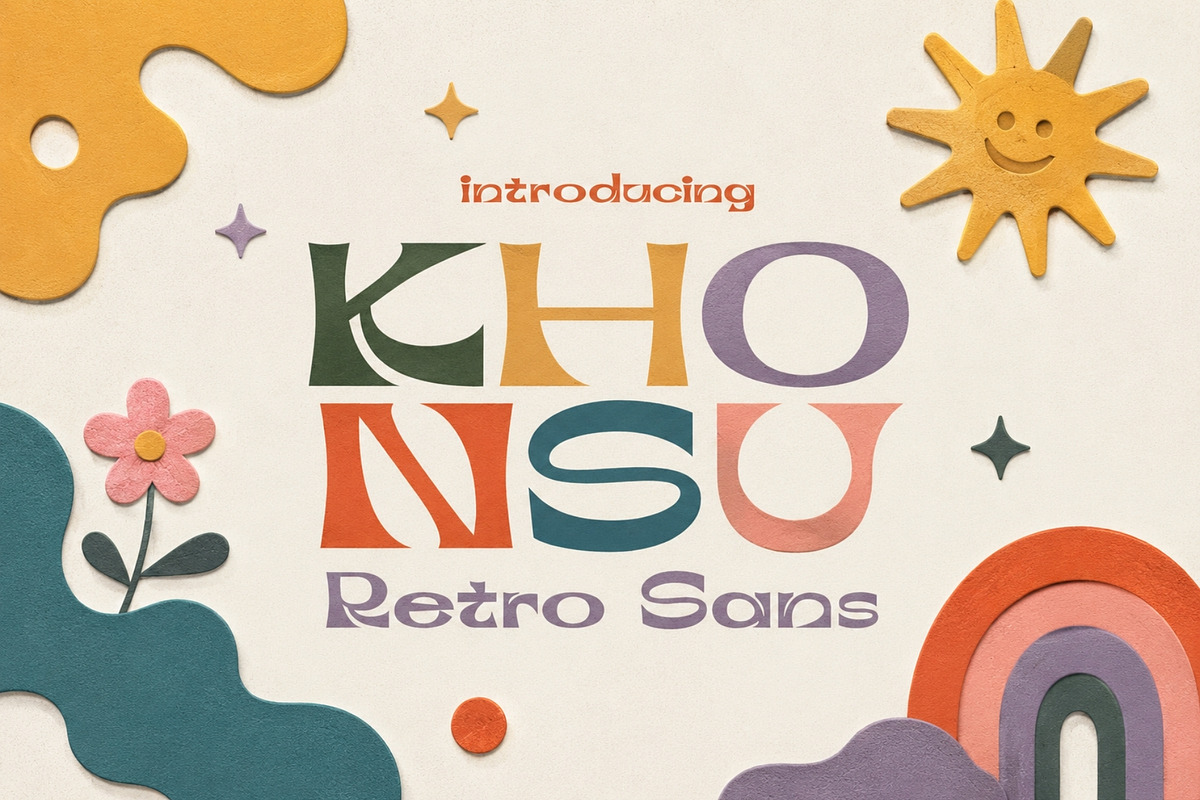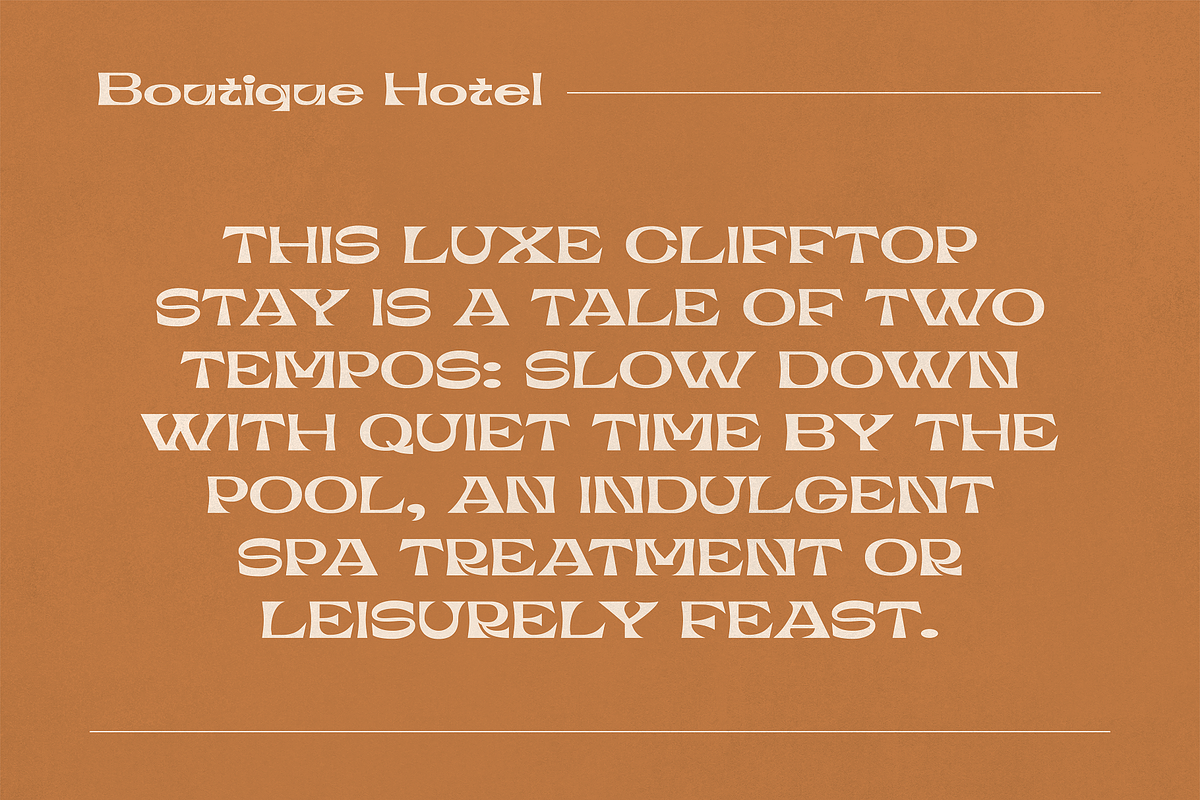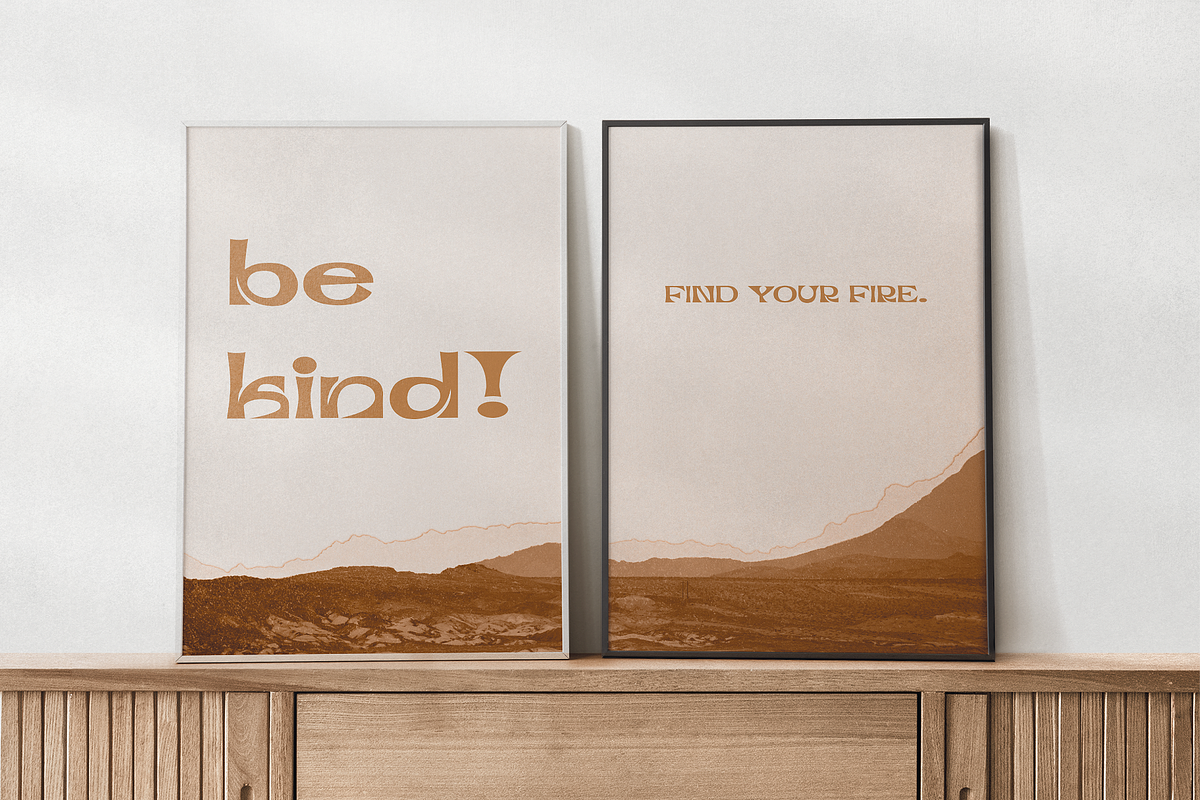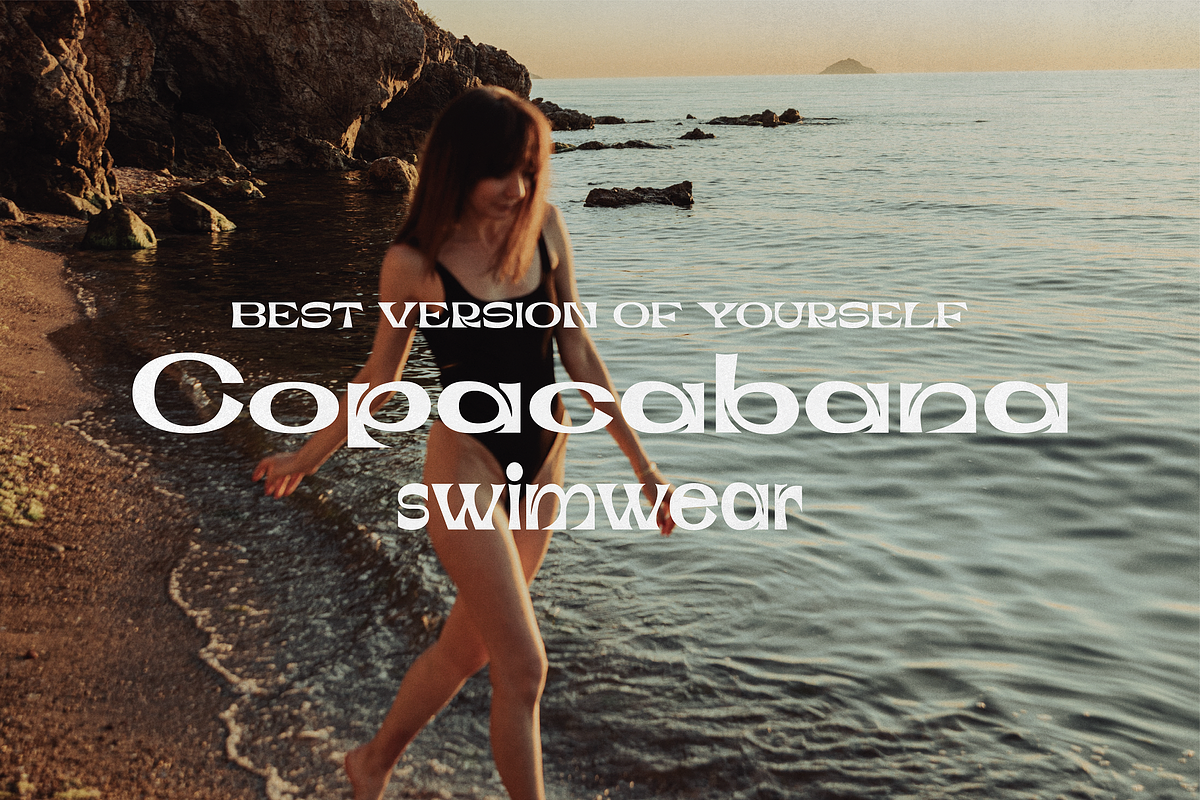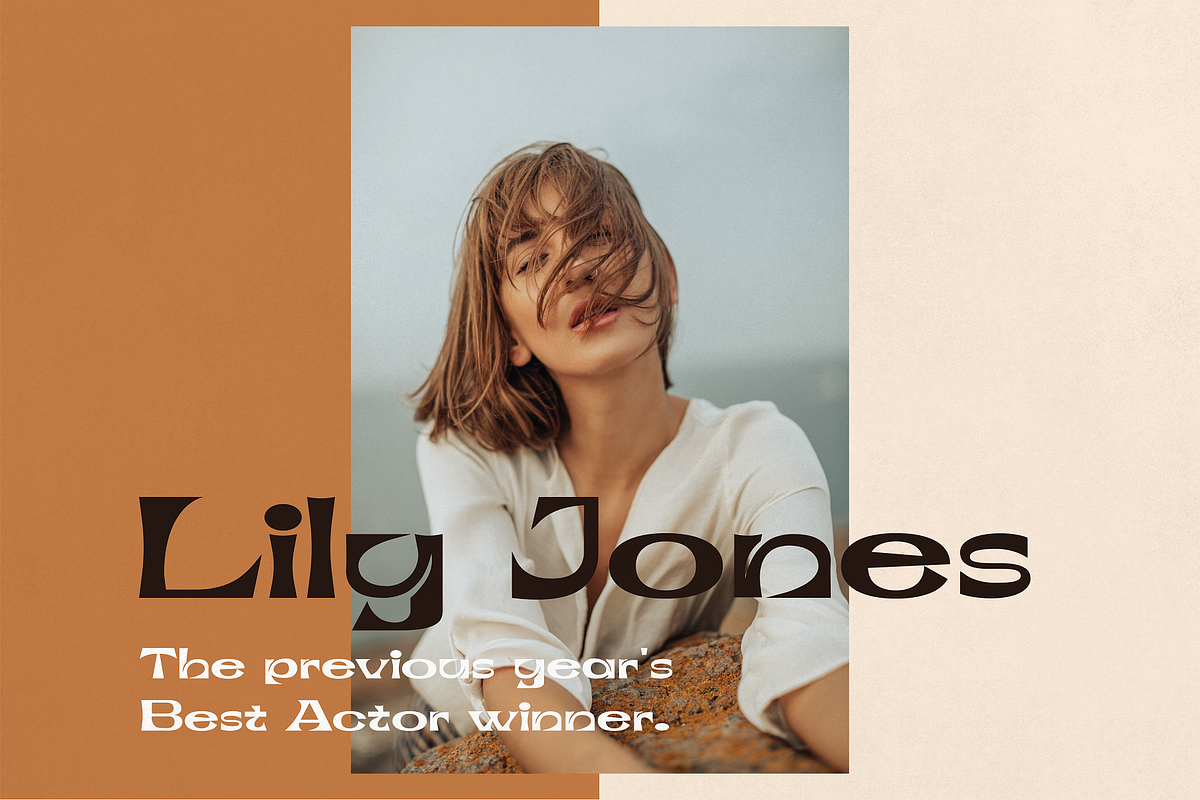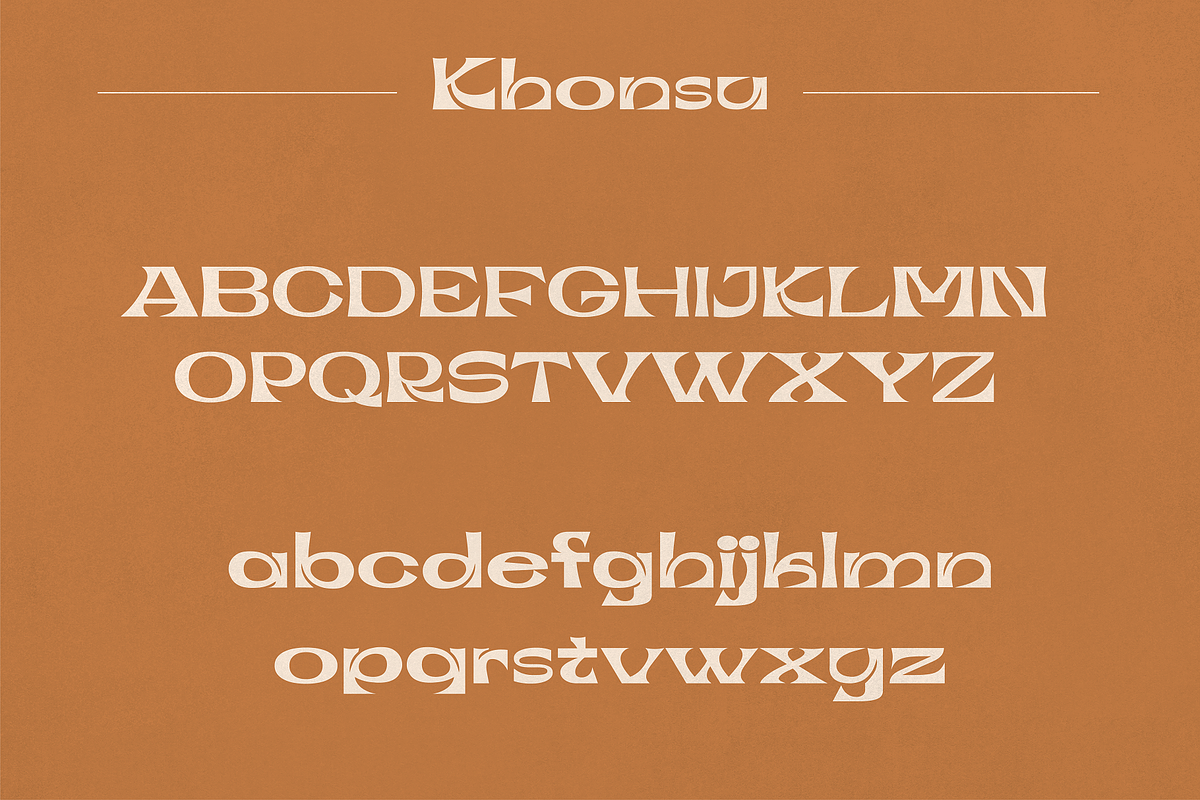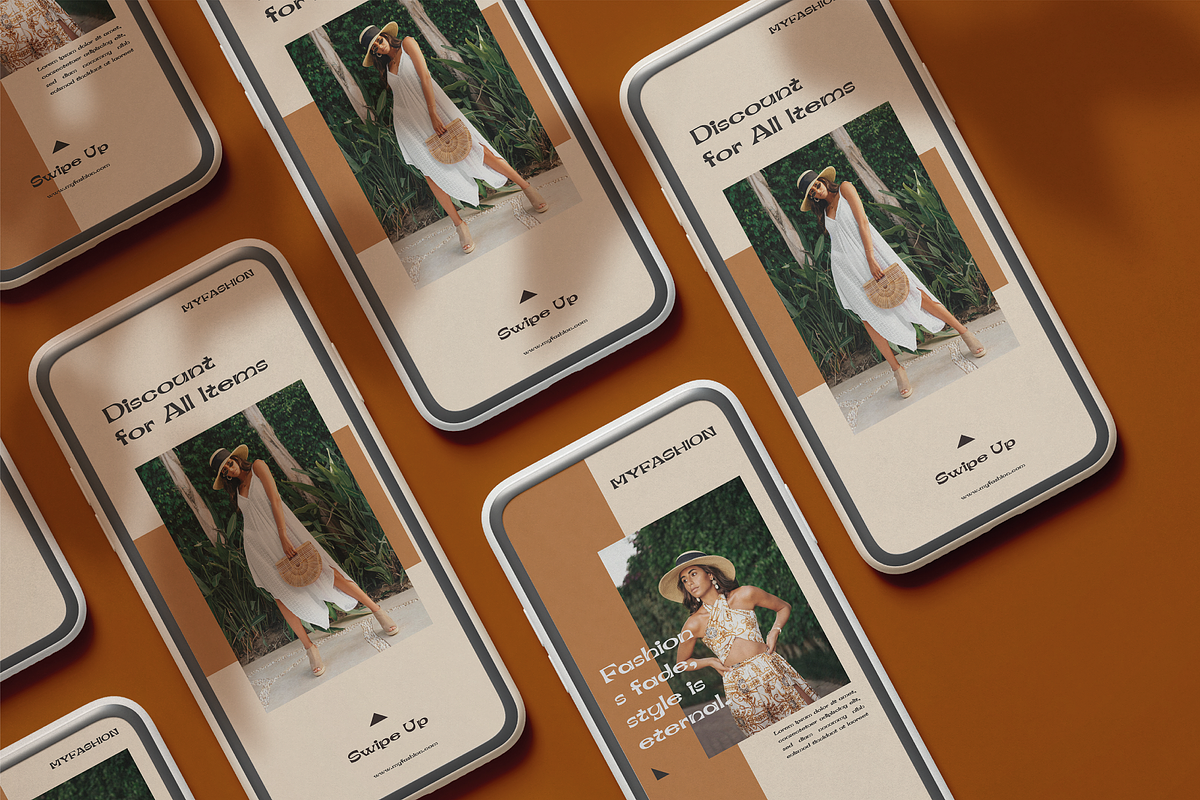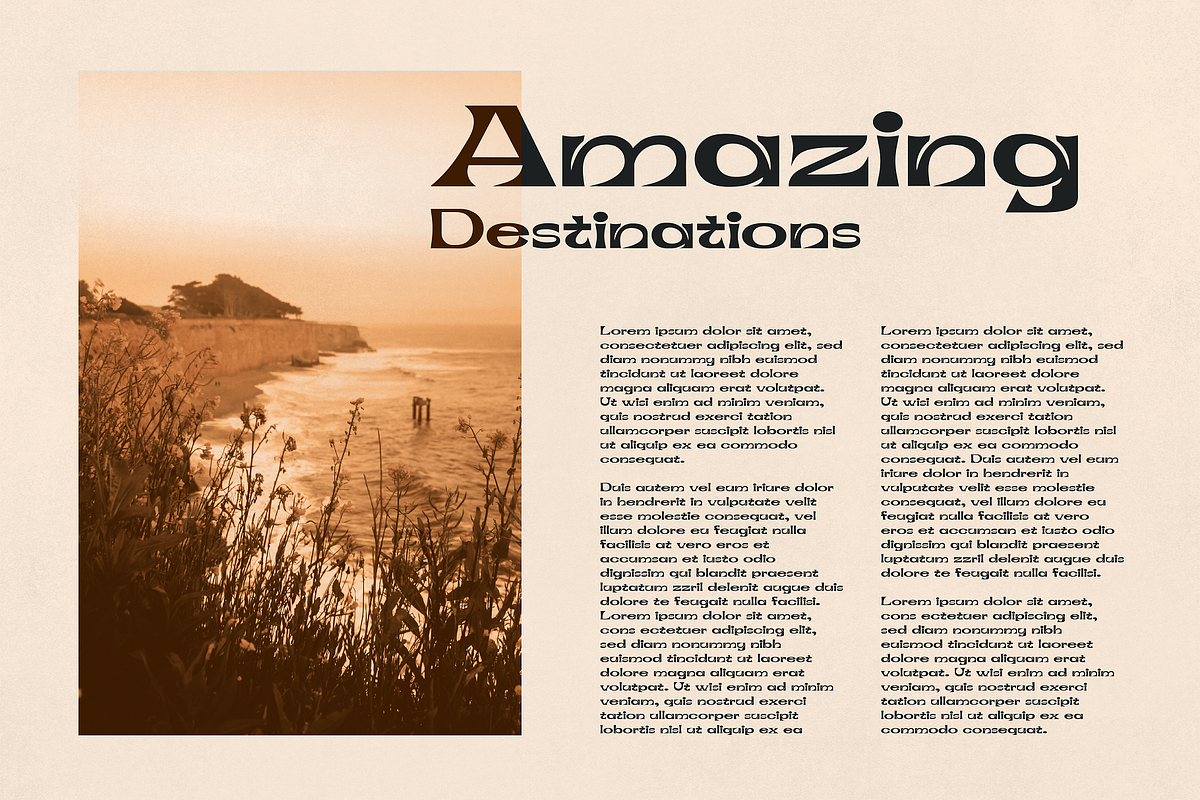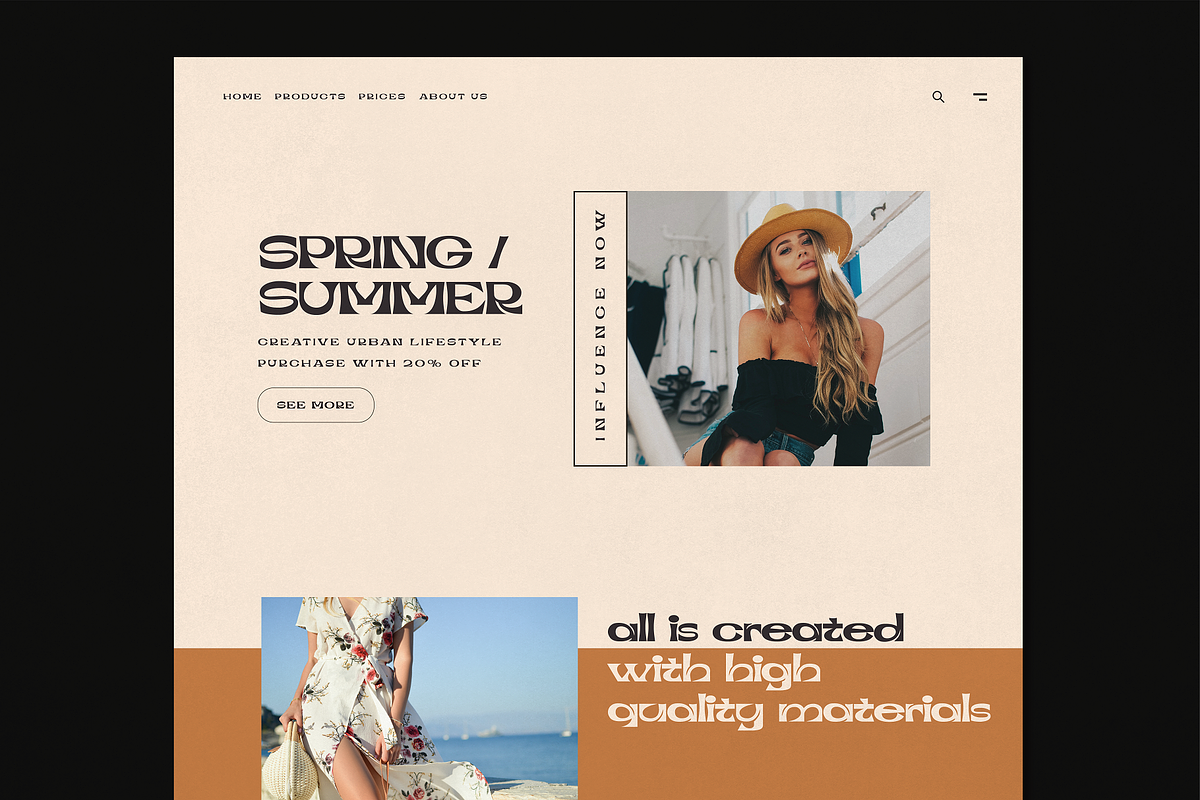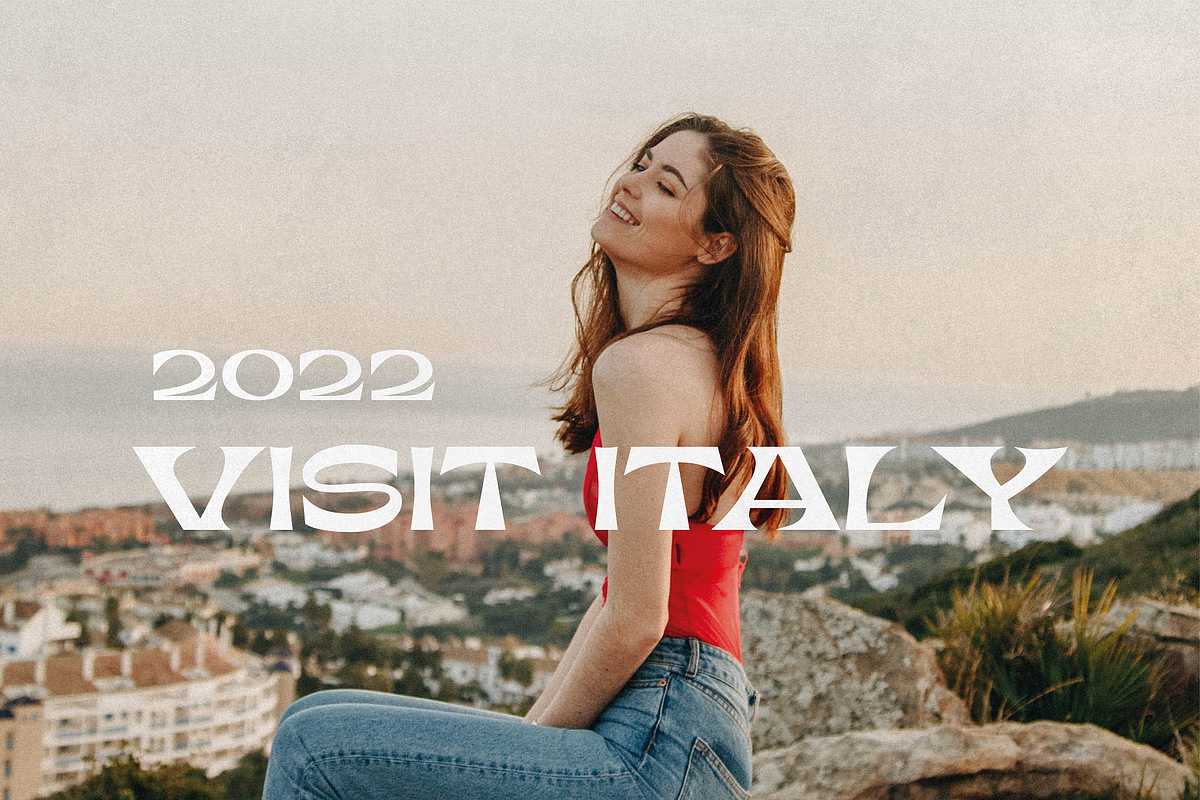
Khonsu - Modern Sans Serif
Khonsu is a unique sans serif typeface that's full of sexy curves. This glamourous font is ideal for magazines, fashion, apparel, branding, headlines, stationary, packaging, and more. Add an extra touch of class and charm to your projects today with Khonsu.